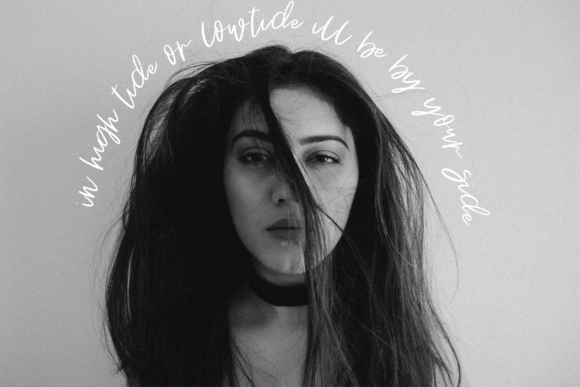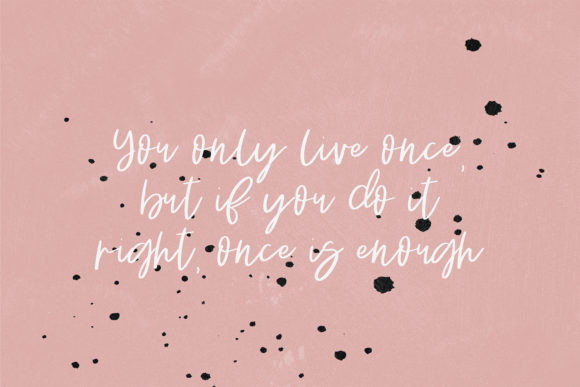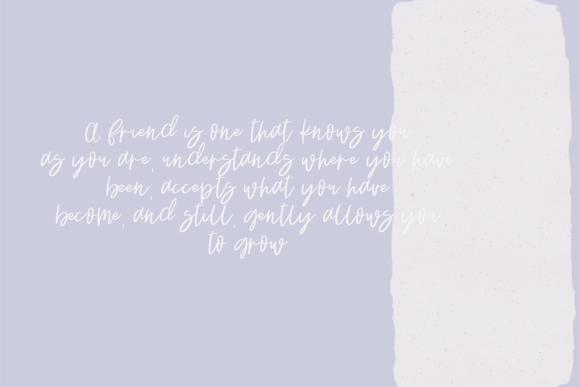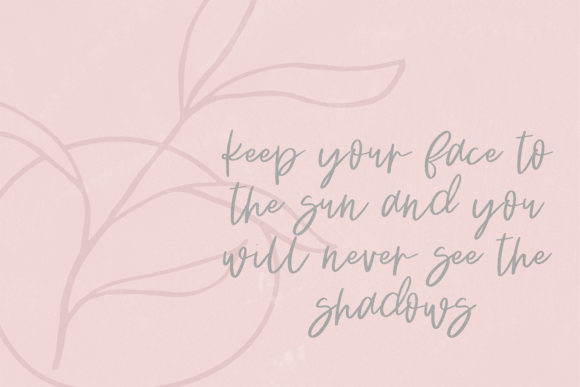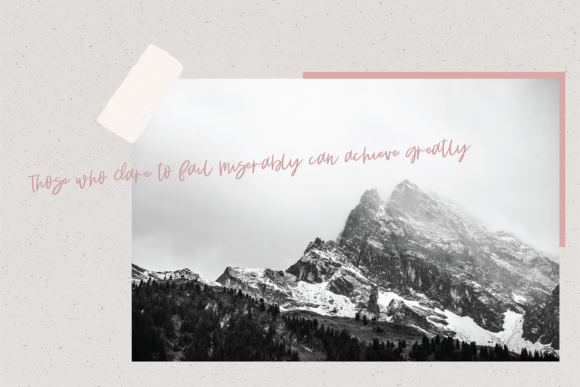
Discover the Elegance of Afterglows Font: Elevate Your Designs with this Delicate Handwritten Font
Are you a designer or crafter looking for a font that can add a touch of elegance and sophistication to your projects? Look no further than Afterglows, a delicate and elegant handwritten font that is sure to capture your heart. With its distinct and well-rounded letters, Afterglows is a masterpiece that can help you create spectacular designs that stand out from the crowd.
The Unique Characteristics of Afterglows Font
Afterglows is a one-of-a-kind font that boasts a unique and versatile style. Its delicate and elegant handwritten letters are carefully crafted to provide a warm and inviting feel to your designs. The font’s distinct characteristics make it perfect for a wide range of projects, from wedding invitations and branding materials to packaging and digital media.
What Makes Afterglows Font So Special?
So, what sets Afterglows apart from other fonts? Here are just a few reasons why this font is a cut above the rest:
• Delicate and Elegant: Afterglows is a beautifully crafted font that exudes elegance and sophistication. Its delicate letters are perfect for creating designs that are both refined and eye-catching.
• Versatile: Whether you’re working on a wedding invitation, a brand identity project, or a digital media design, Afterglows is the perfect choice. Its versatile style allows it to adapt seamlessly to different contexts and uses.
• Well-Rounded Letters: The letters in Afterglows are carefully crafted to provide a smooth and rounded feel. This makes the font easy to read and gives it a warm, approachable feel.
How to Use Afterglows Font in Your Designs
Now that you’ve fallen in love with Afterglows, it’s time to learn how to use it in your designs. Here are a few tips to get you started:
• Pair it with Other Fonts: Afterglows pairs beautifully with other fonts, including serif and sans-serif fonts. Experiment with different combinations to find the perfect look for your design.
• Use it for Headings and Titles: Afterglows is perfect for headings and titles, where its elegant and refined style can really shine.
• Add it to Your Brand Identity: If you’re looking to create a cohesive brand identity, consider using Afterglows as your primary font. Its unique style will help your brand stand out and leave a lasting impression.
Who Can Benefit from Using Afterglows Font?
Afterglows is a versatile font that can be used by a wide range of designers and crafters, including:
• Graphic Designers: Whether you’re working on a branding project, a print design, or a digital media project, Afterglows is a great choice.
• Wedding Planners: If you’re a wedding planner or coordinator, Afterglows is the perfect font for creating beautiful wedding invitations, programs, and other stationery.
• Crafters: If you’re a crafter who loves to create handmade cards, gift tags, and other paper crafts, Afterglows is a great addition to your design toolkit.
In conclusion, Afterglows is a delicate and elegant handwritten font that is sure to capture your heart. Its unique and versatile style makes it perfect for a wide range of design projects, from wedding invitations and branding materials to packaging and digital media. With its well-rounded letters and easy-to-use design, Afterglows is a must-have font for any designer or crafter looking to elevate their designs and create something truly special.